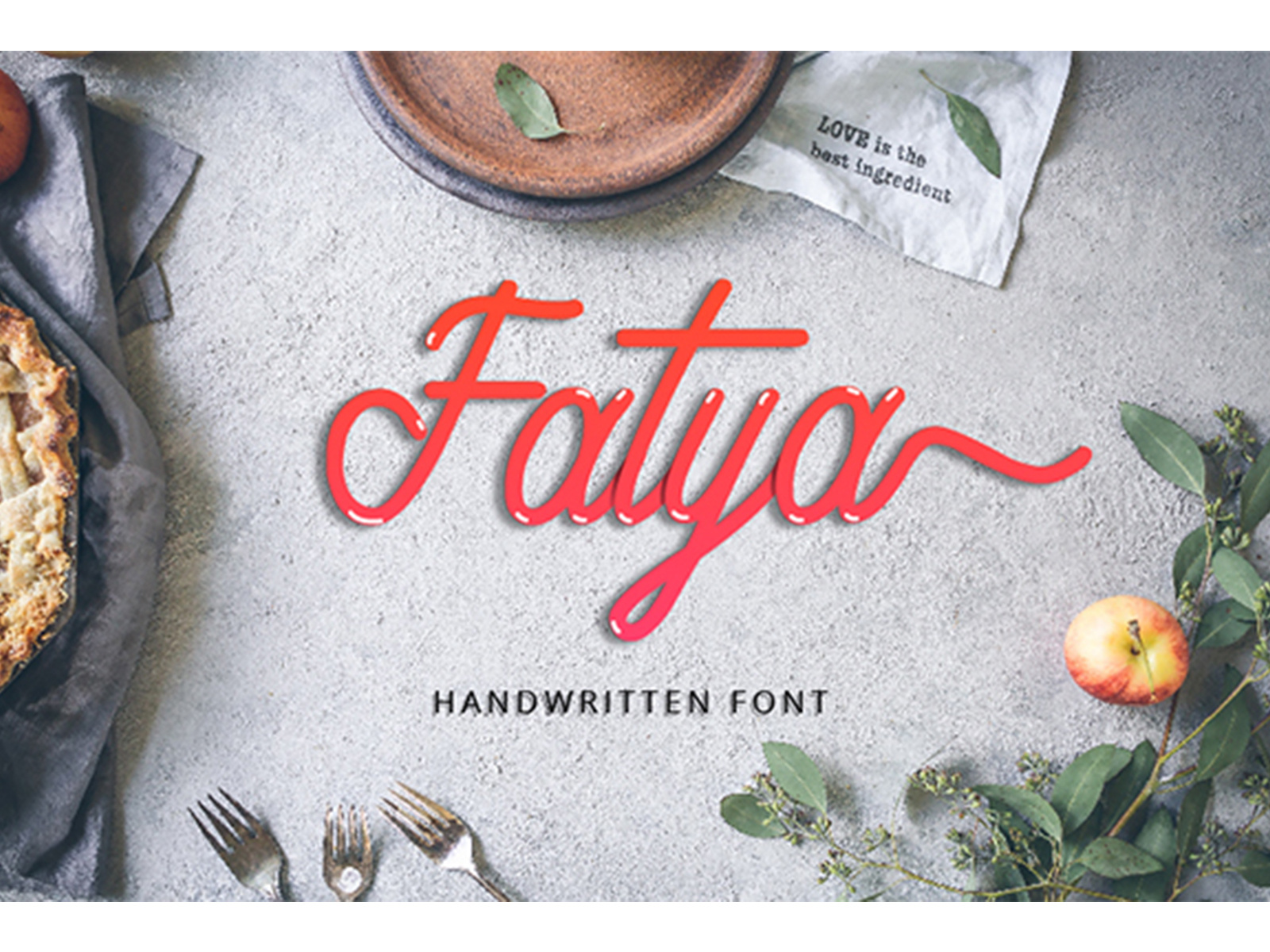
Fatya Script Font
Fatya is an incredibly unique and smooth script with beautiful swashes. Use it to add an authentic touch to any crafting idea! This link download: https://www.creativefabrica.com/product/fatya/ref/235919/